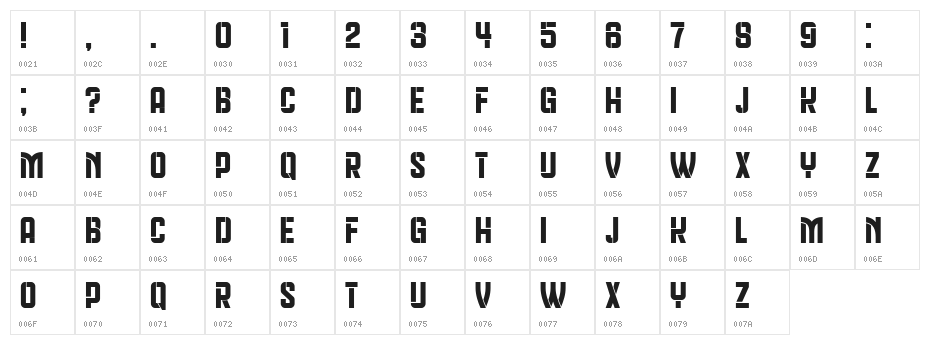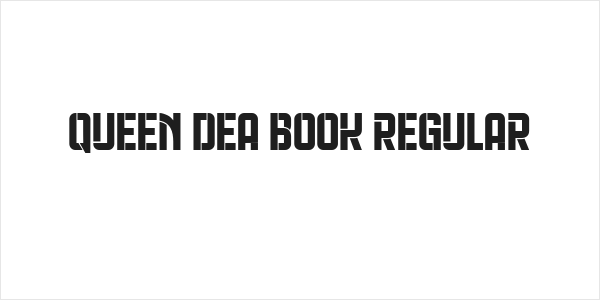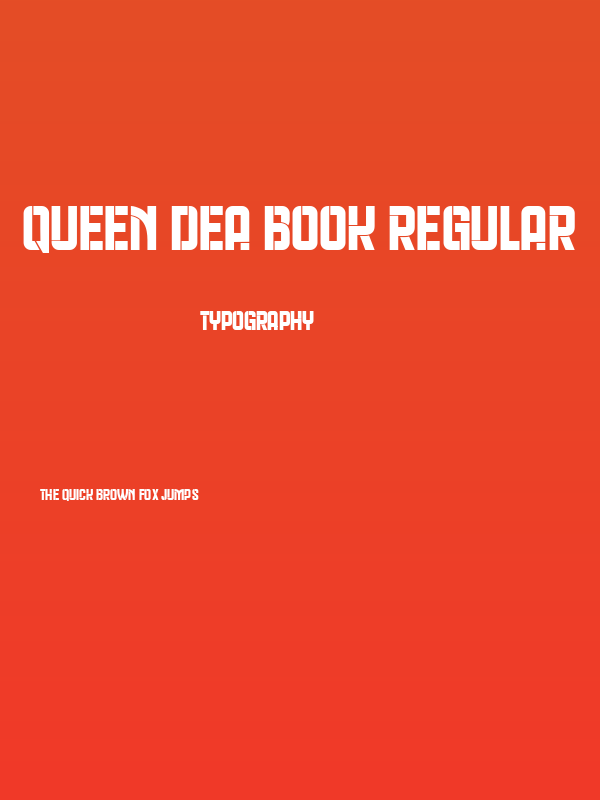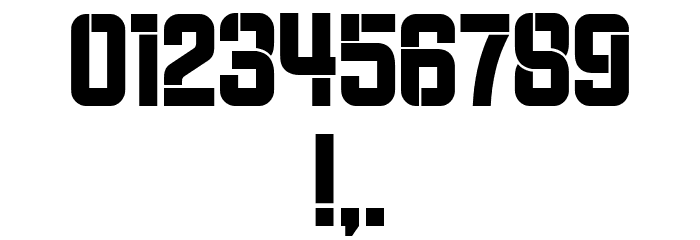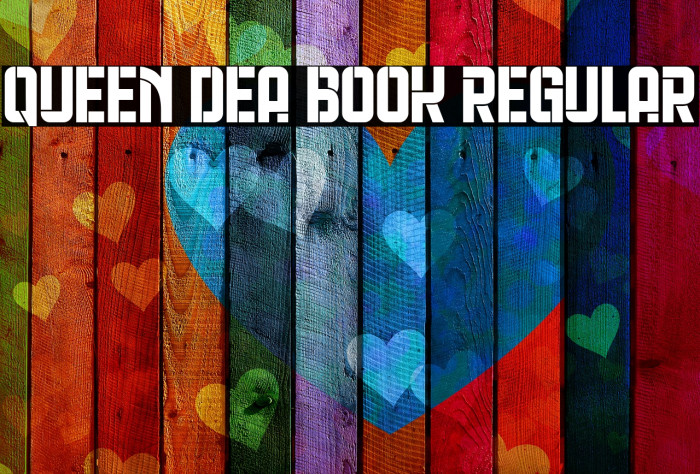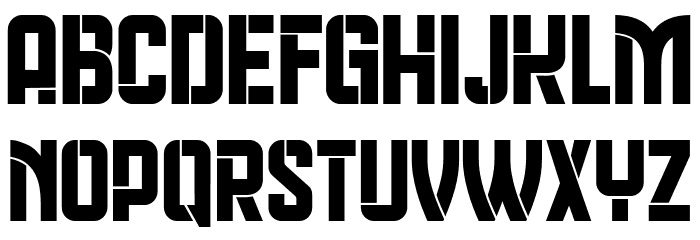
Queen Dea Book Regular Font
Queen Dea Book Regular Description
This font features a bold, geometric design with strong, angular lines and a modern aesthetic. The uppercase letters are characterized by their uniform height and width, creating a sense of balance and stability. The lowercase letters maintain the same boldness, with a slightly more compact form. The numerals are consistent with the overall style, offering clear readability. Special characters are designed to complement the boldness of the alphabet, ensuring a cohesive look across all text elements. The font's distinct style makes it suitable for impactful and attention-grabbing designs.